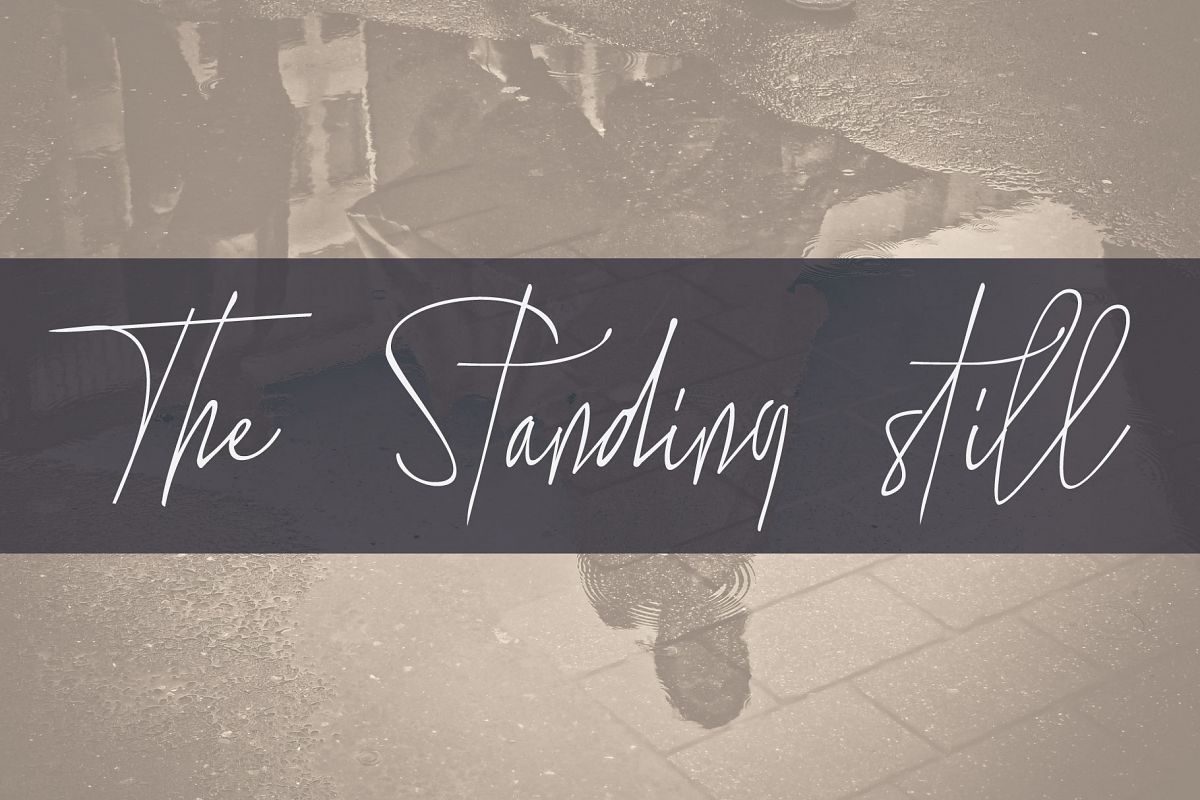
the standing still
intoducing The standing still font, script typeface. this font is from my authentic handwriting that refined digitally. micro line handwriting style suitable for wedding, food menu, fashion magazine, poster, logotype, watermark, signature, etc. this set includes full set of stylish uppercase and lowercase letters, numerals, punctuation. this font will give you realistic hand-lettered style. feature
• ligature
• multilingual ( central europa, turkish, spain, iceland, romanian, latina 3)